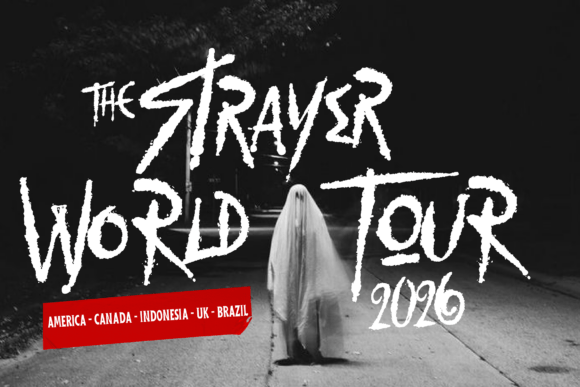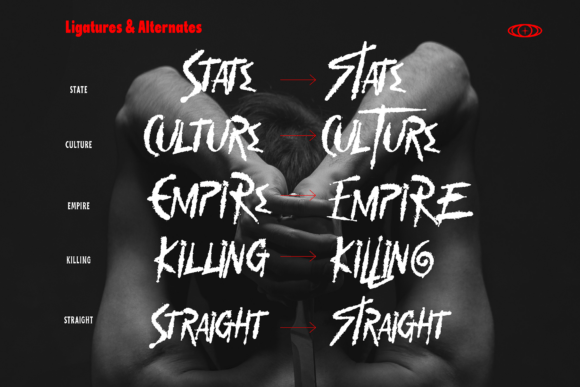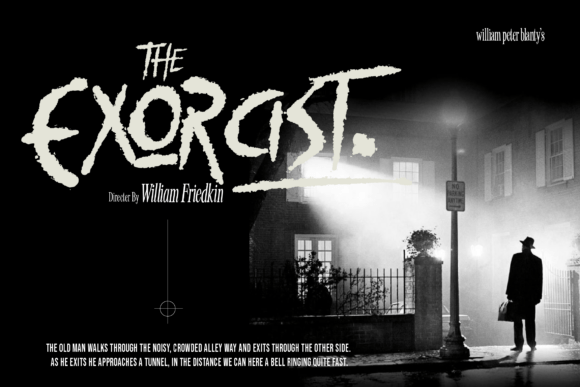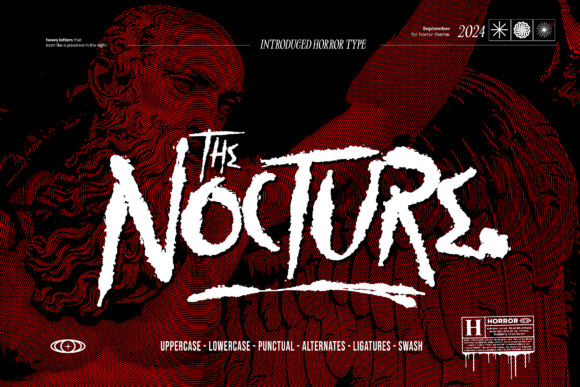
Introduction to Nocture Font
A horror typeface evokes fear and tension through jagged edges, distorted shapes, and unsettling designs.
It often mimics blood splatters, scratch marks, or decayed textures, creating an eerie atmosphere The letters feel unpredictable, as if they could shift or disappear.
Nocture Font offers exceptional quality and versatility, making it a valuable addition to your design toolkit. Whether you’re creating for personal projects or commercial use, Nocture Font delivers professional results.